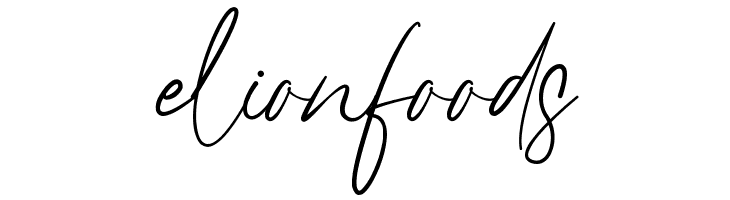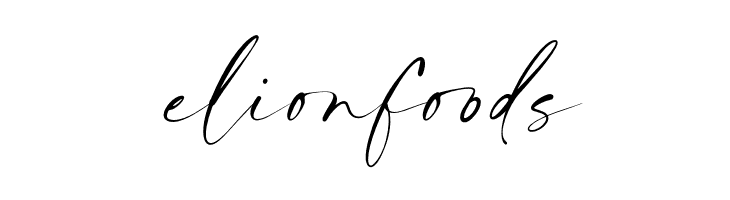
( Fonts by Reffan Suseno )
A whimsical, handwritten font with flowing, irregular strokes.
( Fonts by Muwatta Studio )
A fluid, elegant script font with a cursive, handwritten style.
( Fonts by Moove Studio )
A casual, handwritten font with a flowing, cursive style.
( Fonts by Haris Gozali )
An elegant, cursive font with a signature-like style and high contrast strokes.
( Fonts by Mariyana )
A dynamic, cursive script font with elegant, flowing strokes.
( Fonts by Bluestype Studio )
A graceful script font with fluid, connected strokes, ideal for personal and elegant designs.
( Fonts by Lunas Type )
A modern, elegant script font with a flowing, handwritten style.
( Fonts by Graphix Line Studio )
A casual, flowing handwritten font with smooth, cursive strokes.